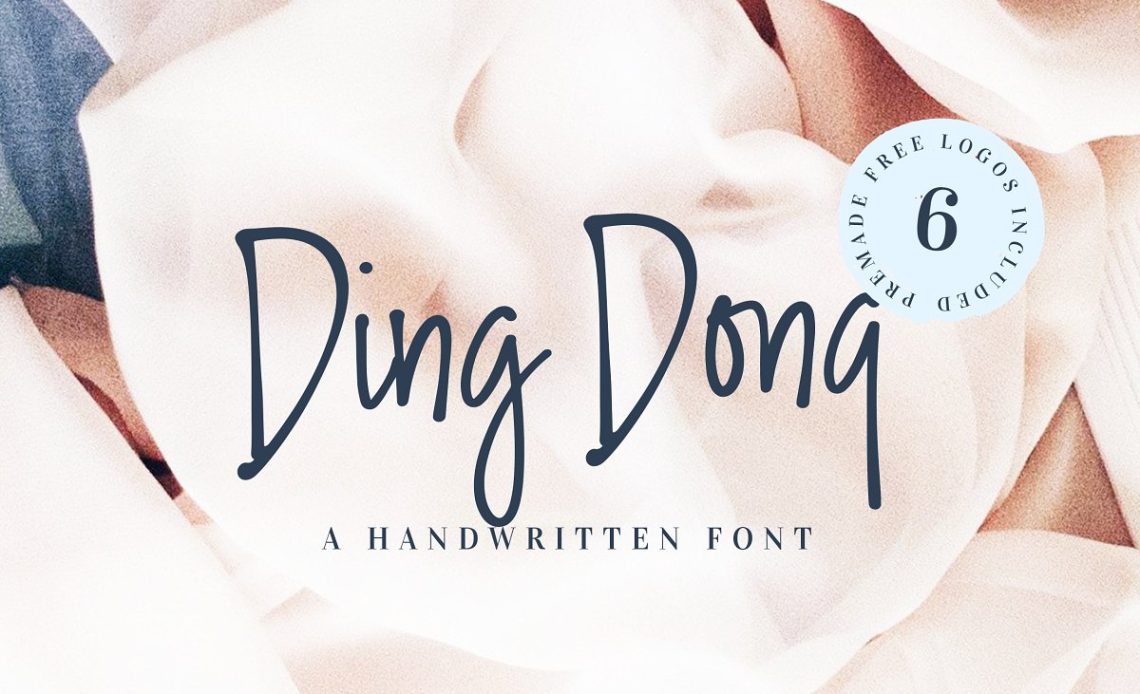
Introducing Ding Dong Handwritten Font + Logos, the ultimate script font that will take your design projects to the next level! Created by the talented Vlad Cristea, this font is a must-have for anyone looking to add a touch of elegance and modernity to their designs.
With its unique handwritten look, Ding Dong is perfect for logos, signatures, labels, packaging design, and even blog headlines. This cool and modern font will make your text stand out and captivate your audience like never before.
But that's not all! Ding Dong comes with a wide range of features and options to unleash your creativity. It includes upper and lowercase basic characters, numbers, marks, and punctuation. Plus, it offers diacritics for Western and Central European languages, ensuring that your text is perfect in any setting.
As a bonus, Ding Dong also includes double letters ligature, special ligatures, alternates, swashes, and illustrations. These additional elements will give your designs a unique and artistic touch, making them truly one-of-a-kind.